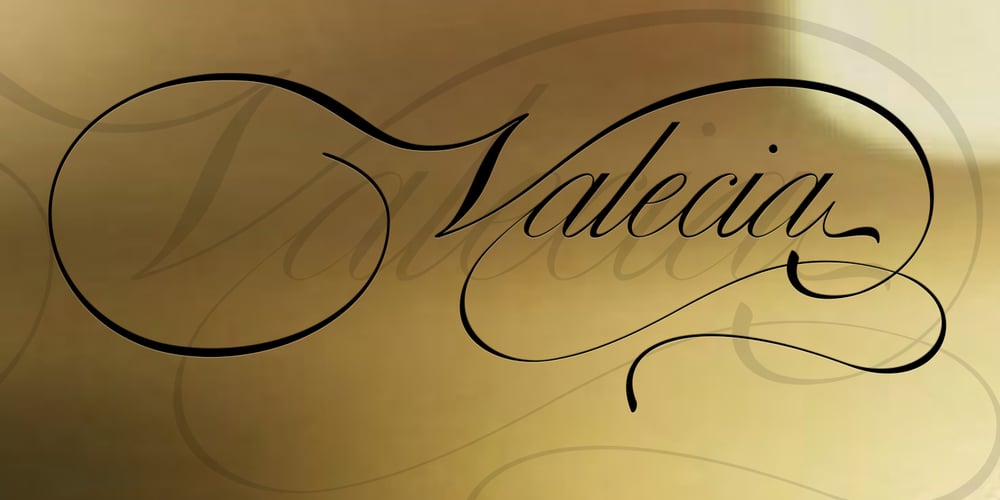
Valecia
Valecia font
Valecia Font Family was designed by Afrizal Hidayat and published by ejhaa. Valecia contains 1 styles and family package options. Valecia is a calligraphic script font that presents exquisite vogue characters, a form of classic ornamental copper script infused with a modern touch. It has been intricately designed with 715 glyphs to convey a stylish and elegant flair. Valecia possesses an alluring quality characterized by refinement, cleanliness, femininity, sensuality, glamour, simplicity, and remarkable readability due to the abundance of lavish letter connections.